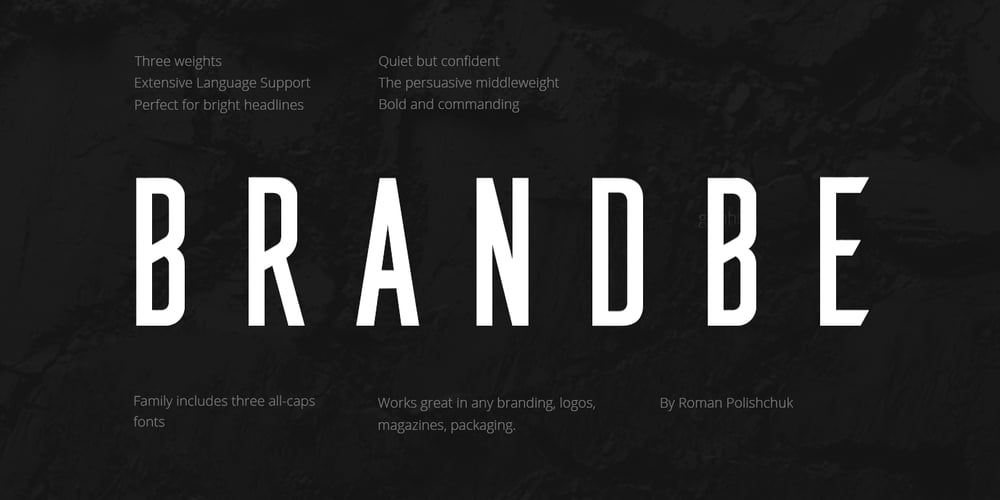
Brandbe
Brandbe font
Brandbe Font Family was designed by Roman Polishchuk and published by Roman Polishchuk. Brandbe contains 3 styles and family package options. Brandbe is perfect for bright headlines, in web as well as in printing. FEATURES: Family includes three all-caps fonts: Three weights / Numbers & Punctuation / Extensive Language Support Brandbe Light – quiet but confident Brandbe Regular – the persuasive middleweight Brandbe Bold – bold and commanding USE: Brandbe works great in any branding, logos, magazines, packaging. Each style contains a set of 406 characters supporting 207 different languages..